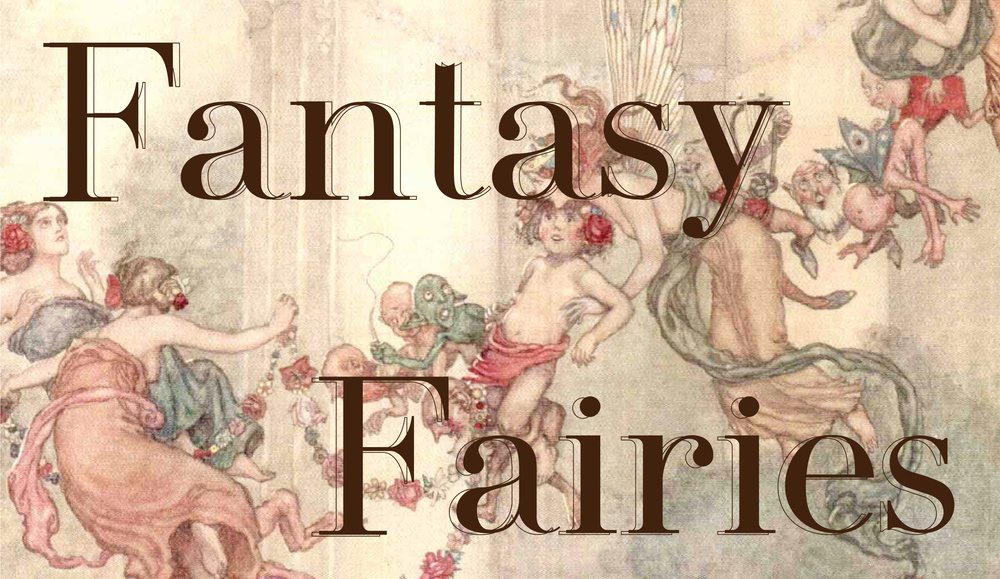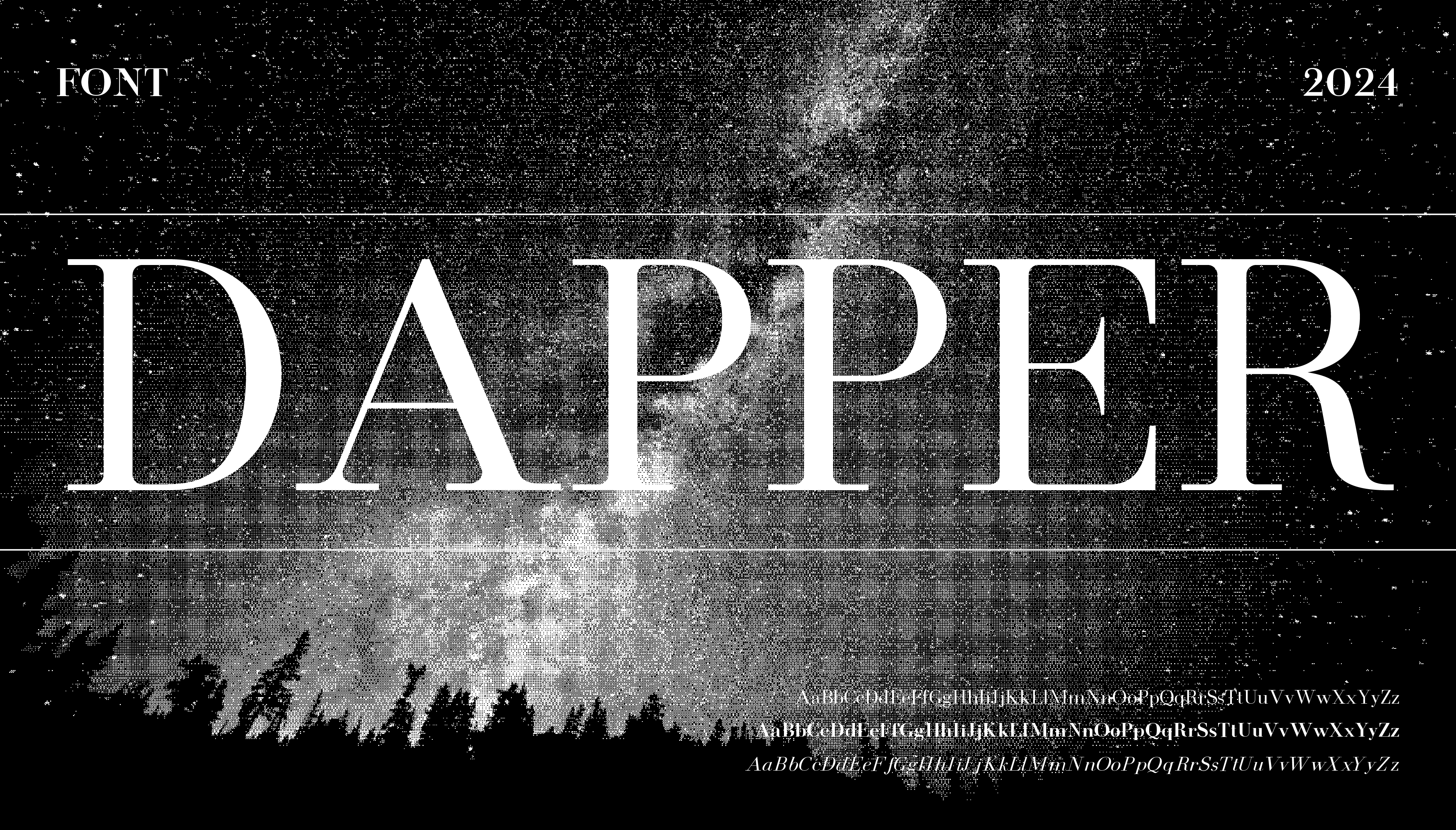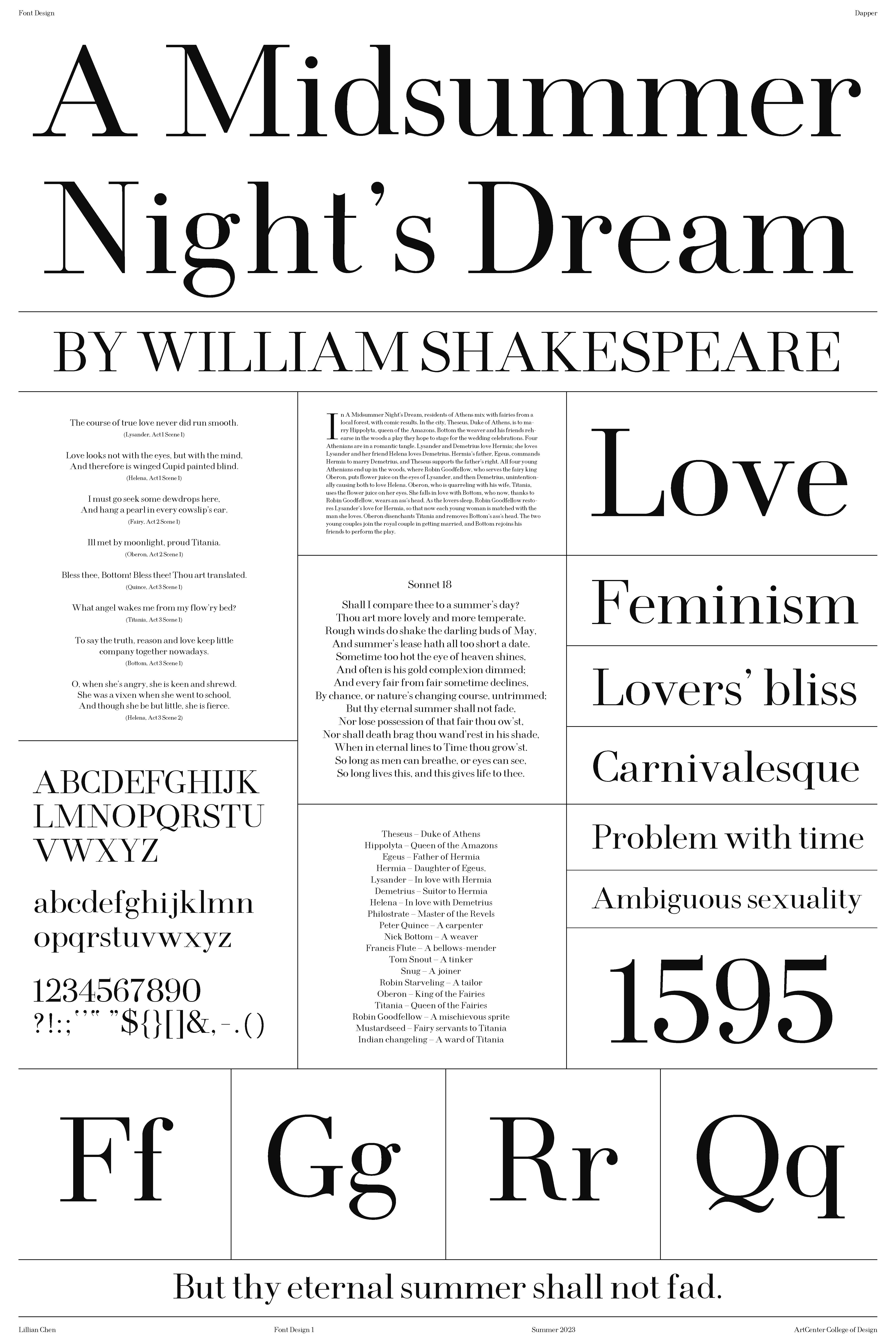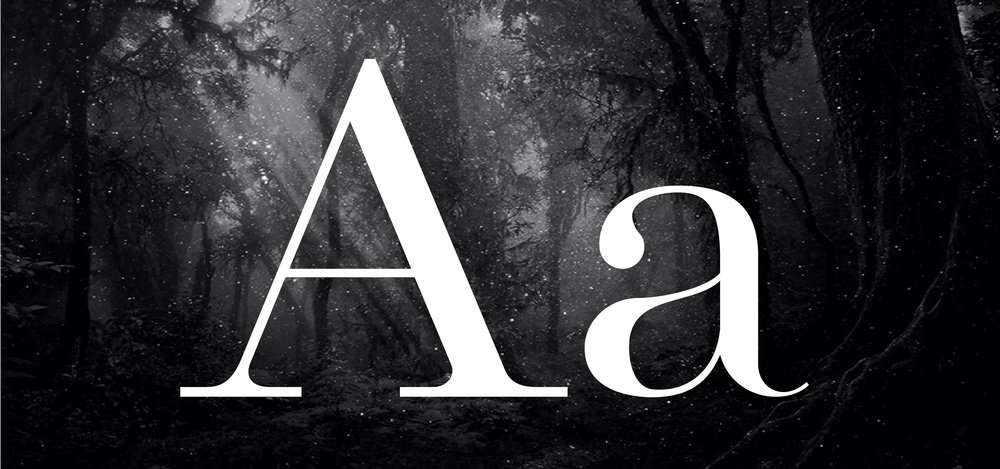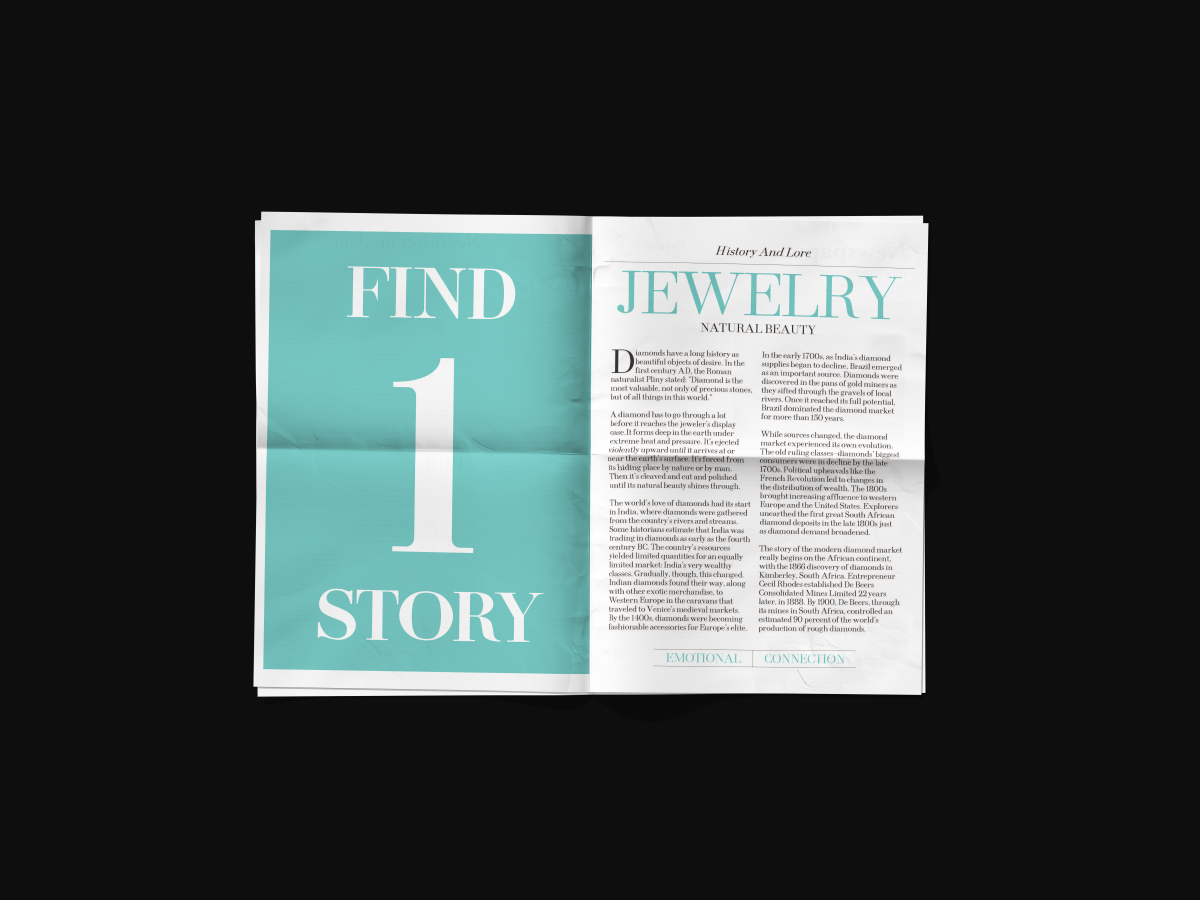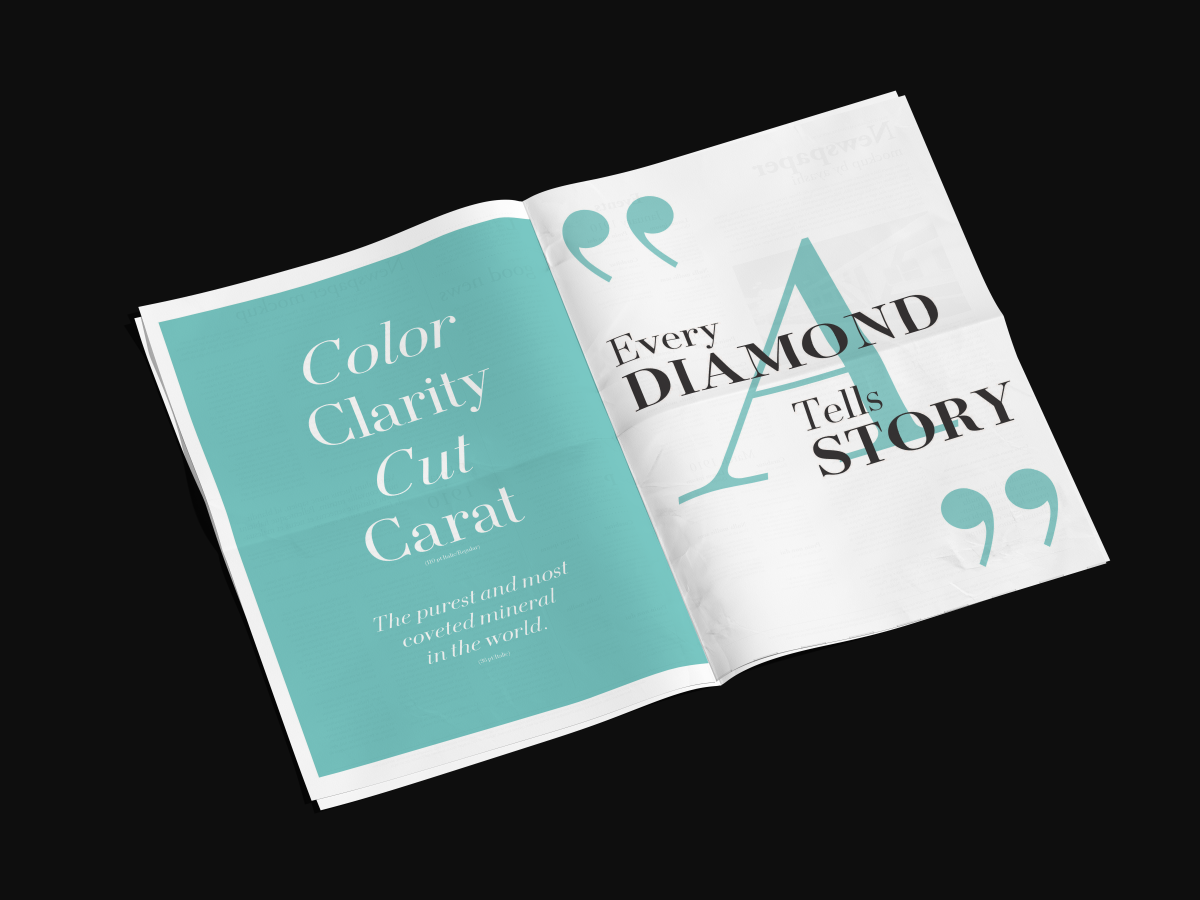
Dapper Font
Dapper is a set of fonts I designed to be used as headlines and body text, inspired by Didot. In this set I increased the width of lines and add rounded corners, I wanted the font to look elegant and delicate, but at the same time more gentle and humane.